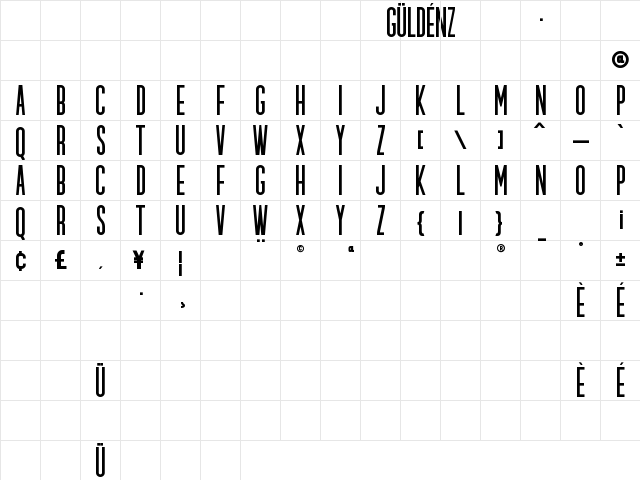
GULDENZ Regular
| Designer | MLKWSN 2018 |
Design Context for GULDENZ Typeface
GULDENZ takes a measured approach to typography — its balanced proportions and neutral character make it a reliable workhorse for both digital and print work.